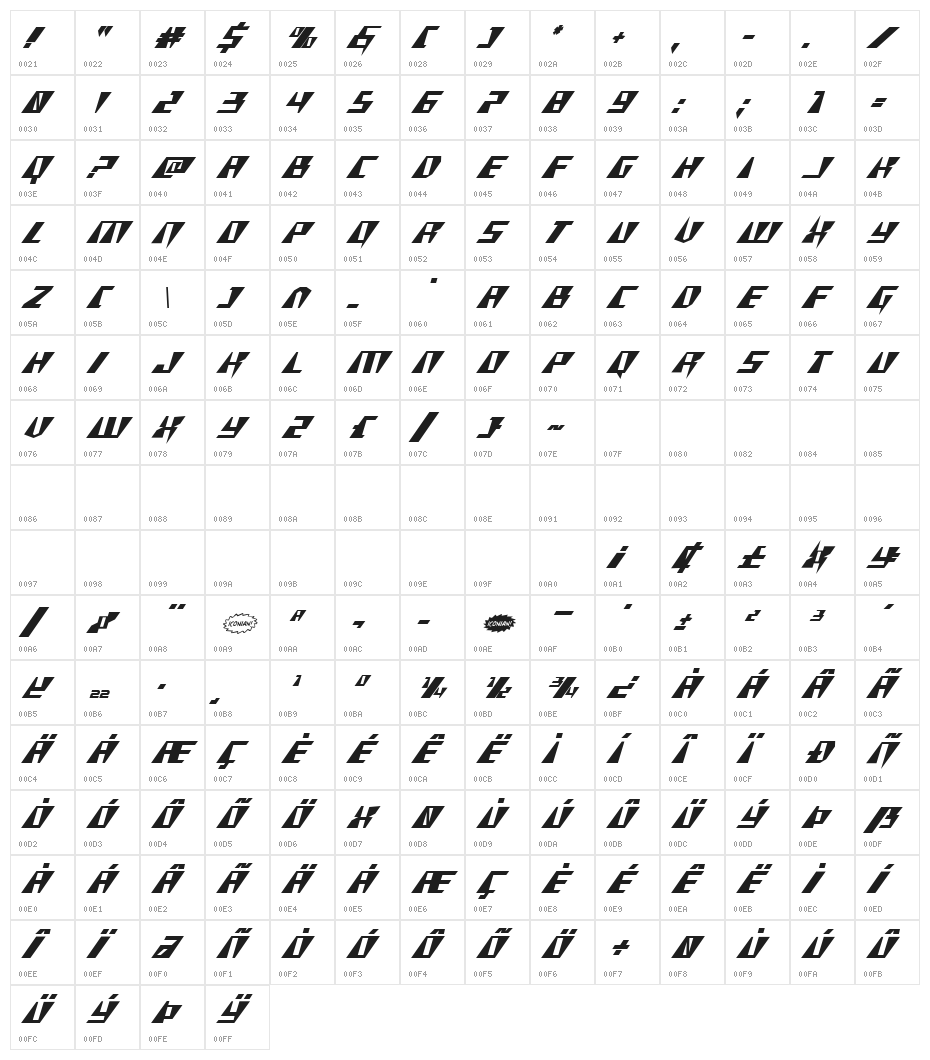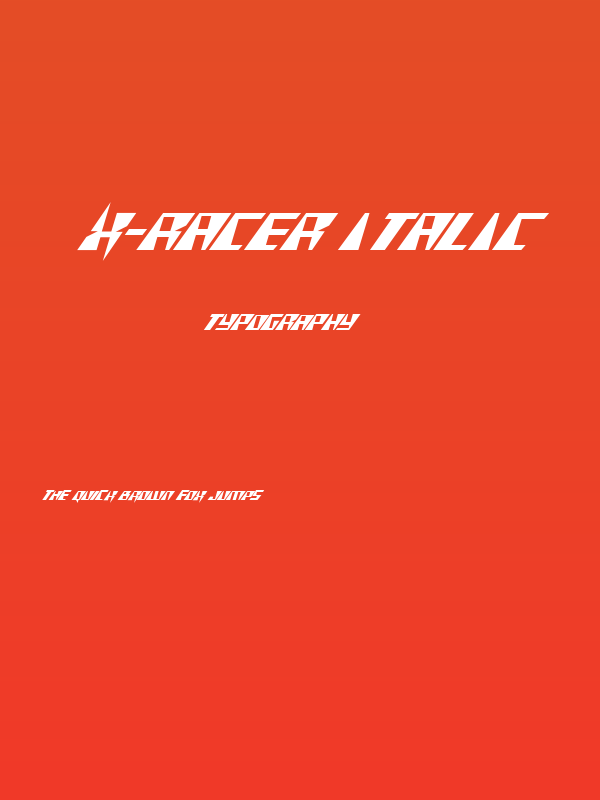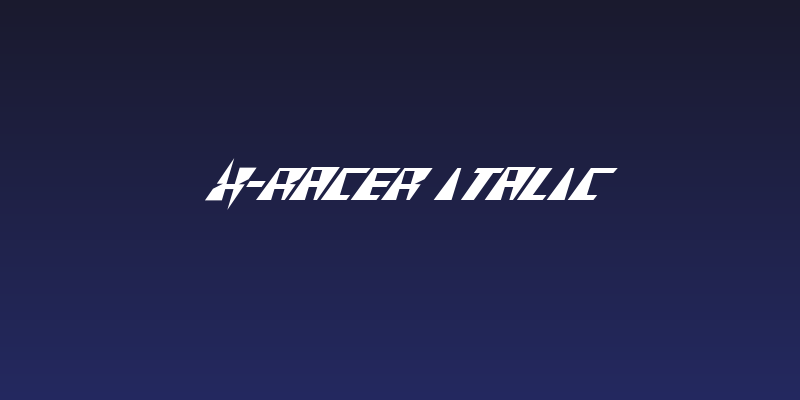
X-Racer Italic Font
X-Racer Italic Description
This dynamic and angular font exudes a sense of speed and modernity, characterized by its sharp, slanted lines and bold presence. The letters are designed with a futuristic flair, incorporating pointed edges and a forward-leaning stance that suggests motion and energy. The uppercase and lowercase letters maintain a consistent style, with each character exhibiting a unique geometric form. Numbers and special characters follow the same aesthetic, ensuring a cohesive look across all text elements. The font's aggressive and sleek design makes it ideal for projects that require a strong visual impact.